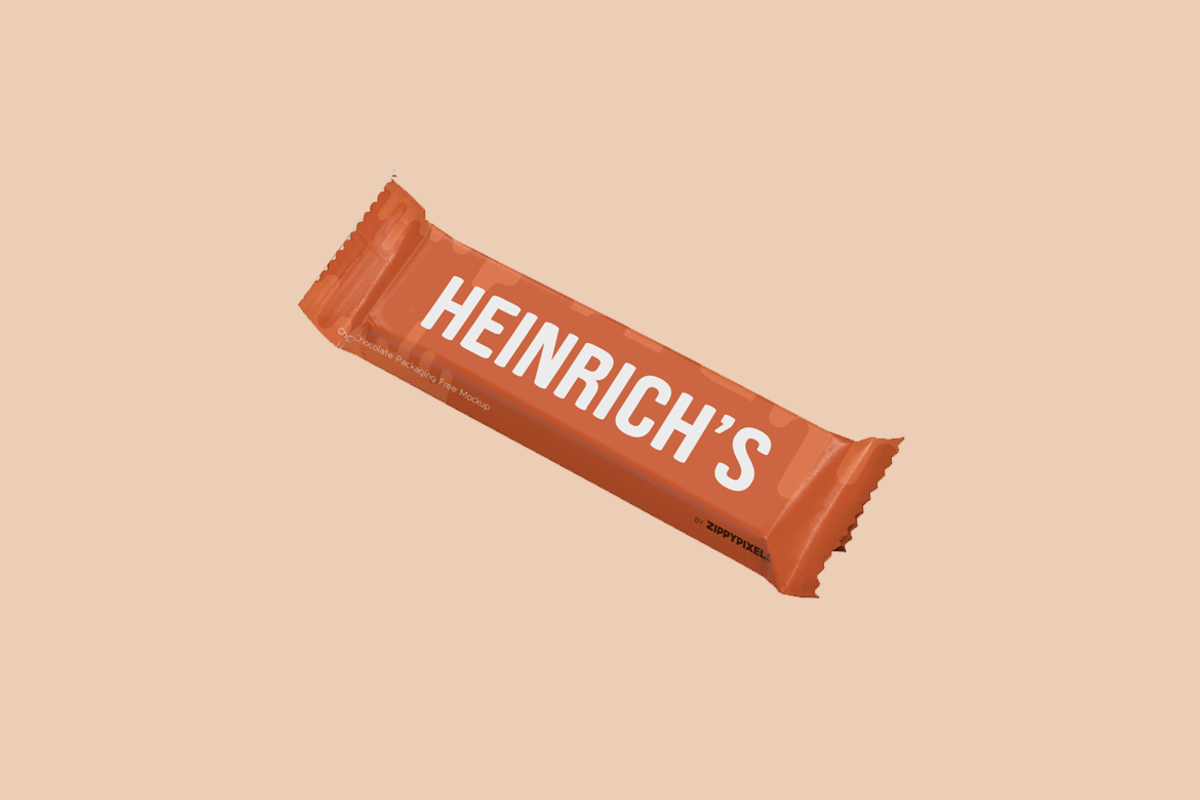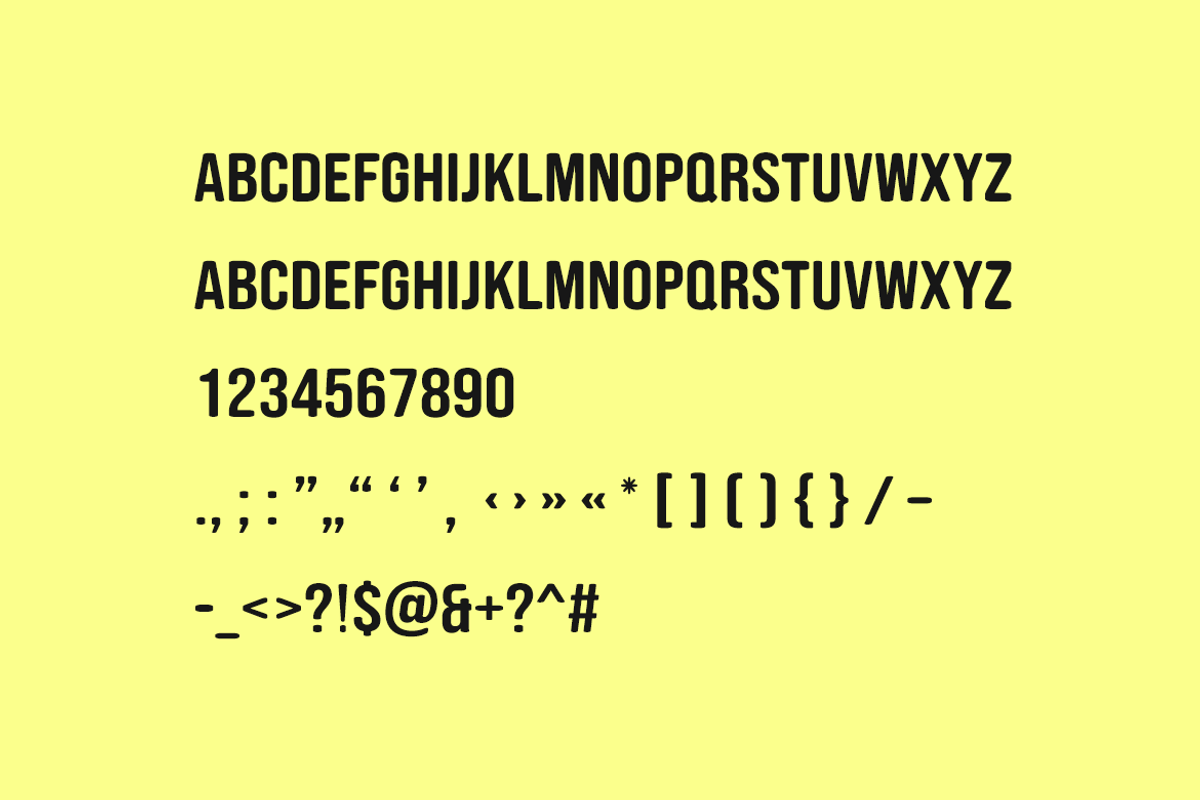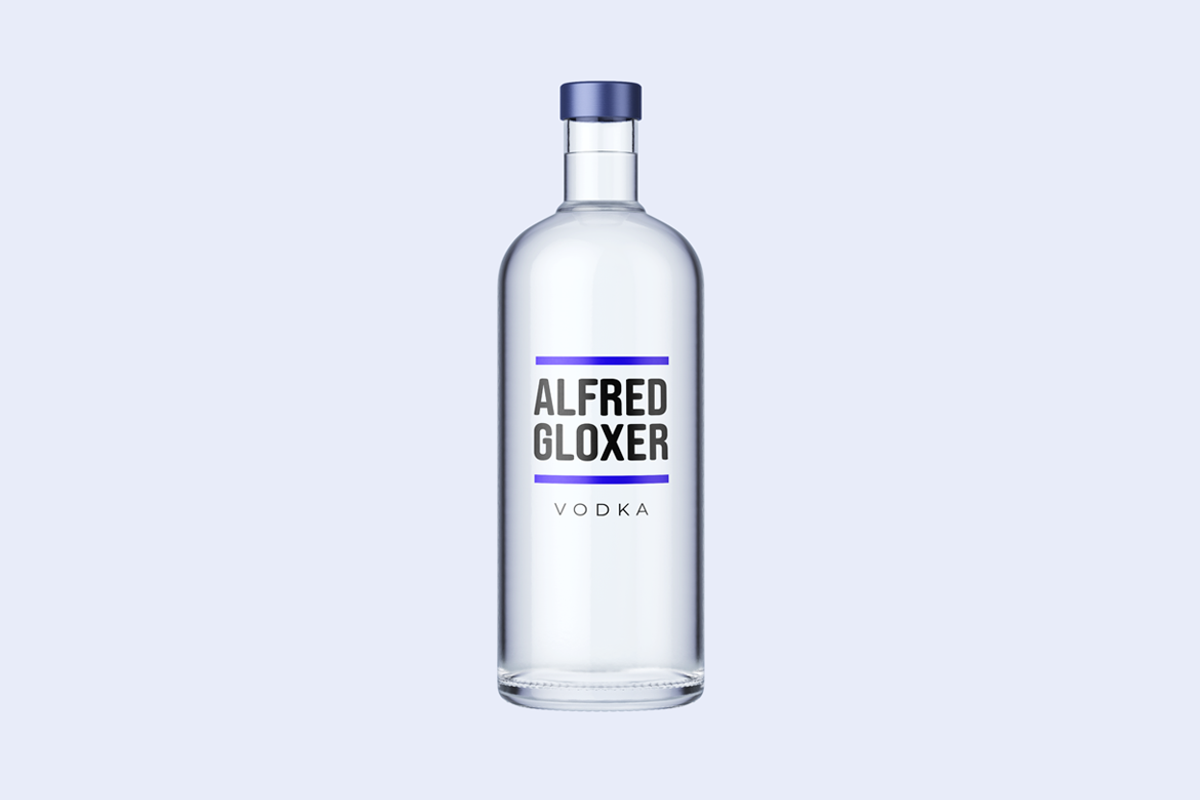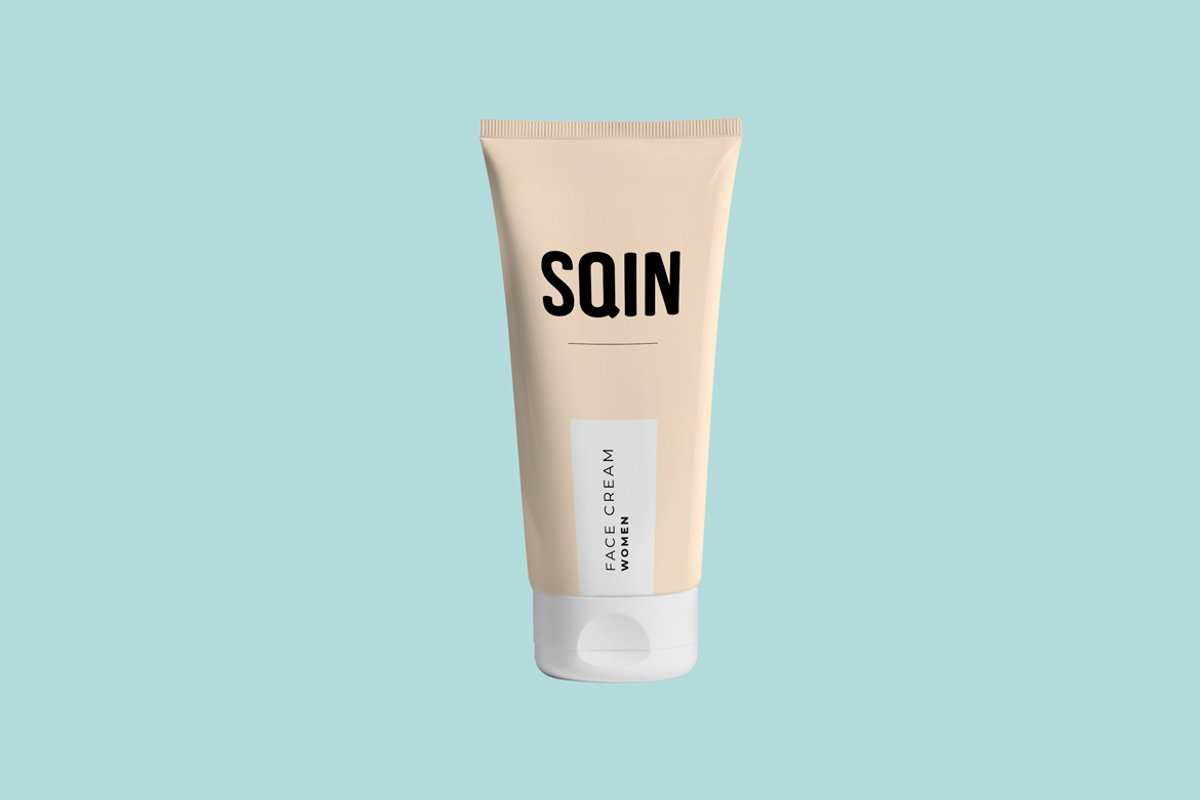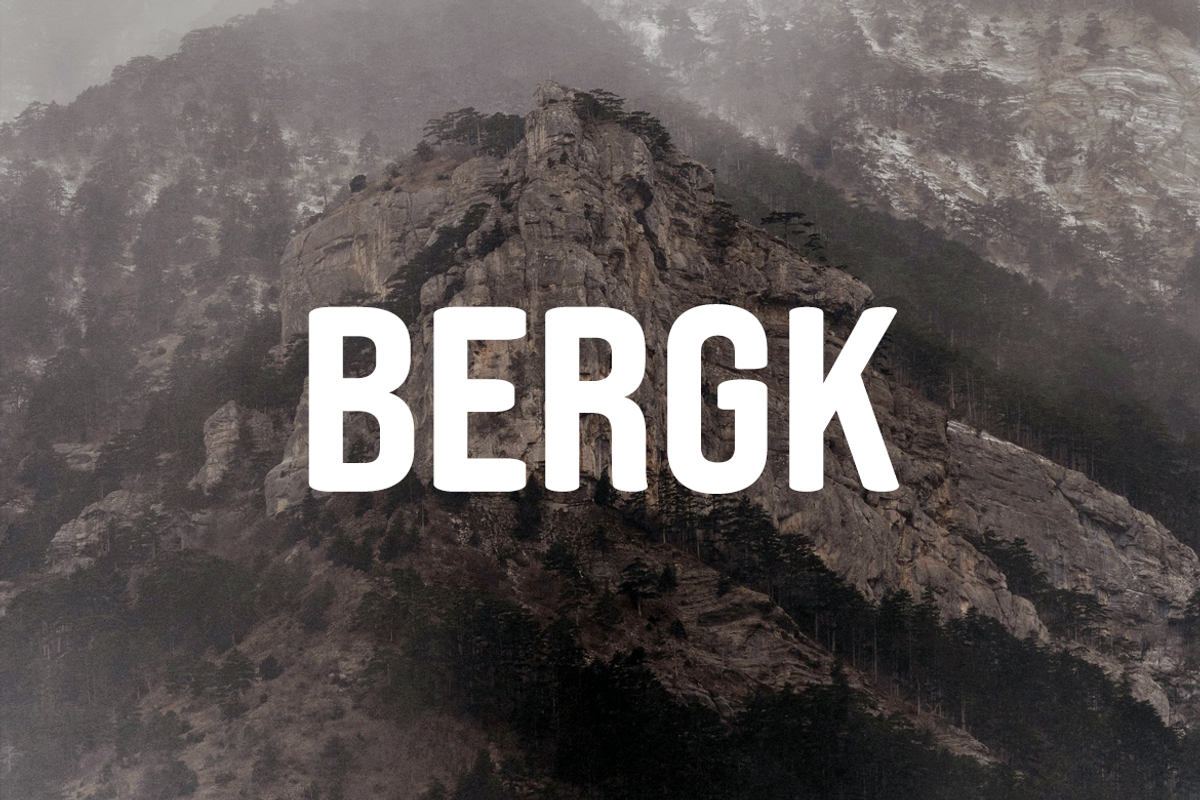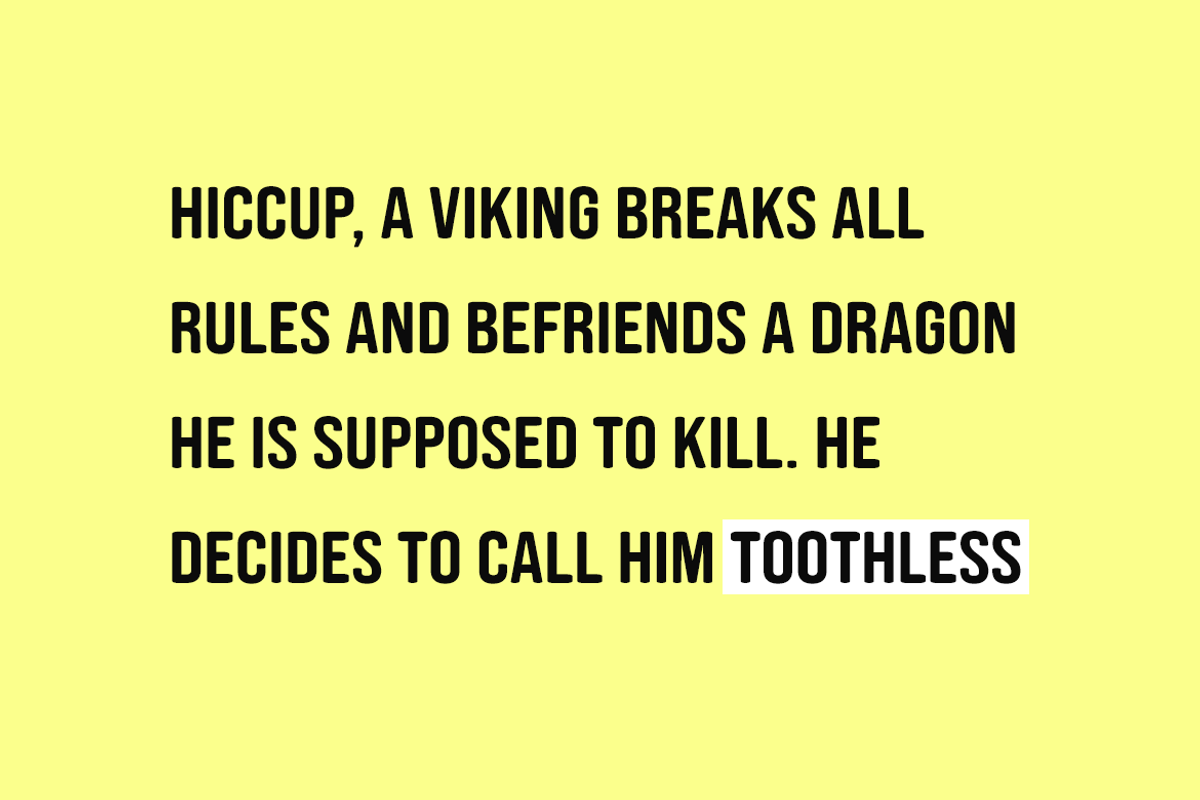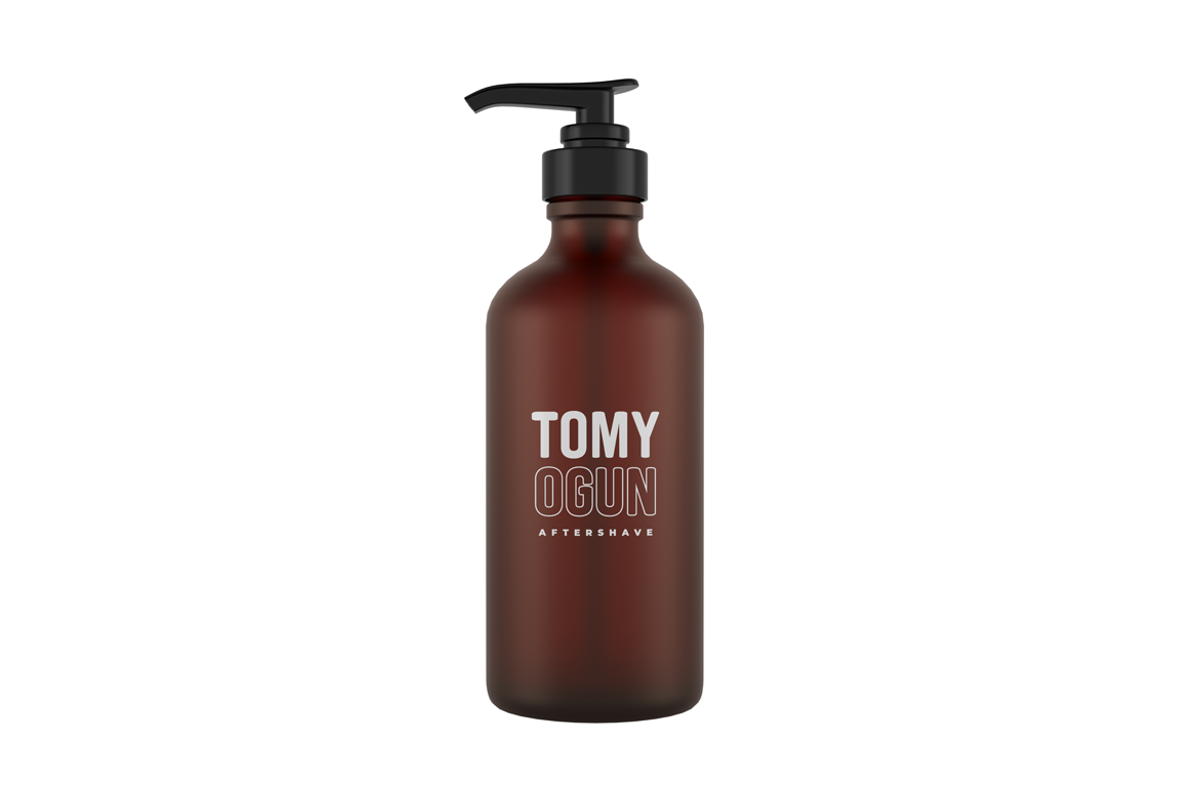
BERGK - Display / Headline Typeface
BERGK is a unique and modern all-caps typeface for headlines, big text, branding, logotypes & display usage. This font is also perfect for creating outstanding logos, promotional content and marketing graphics that can grab your visitors' attention. Please see the examples shown above to get an idea about the capability of this typeface.